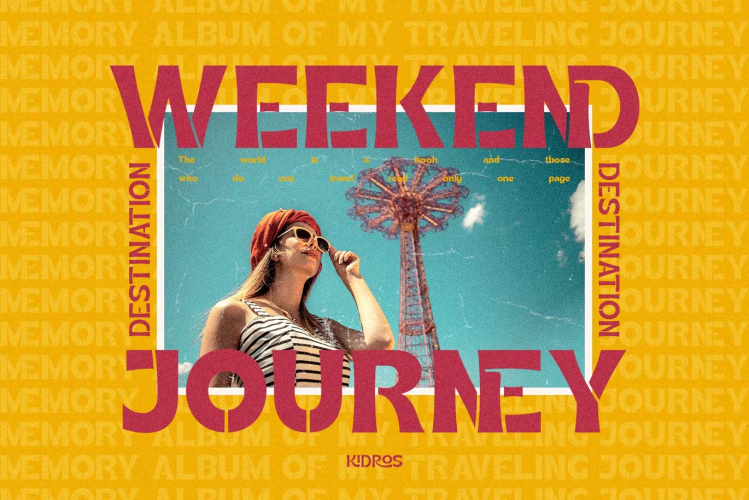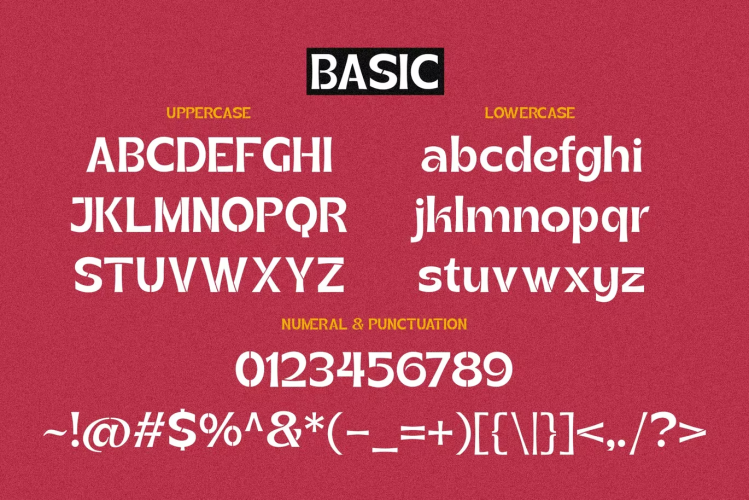
Kidros Typeface Font
Introducing KIDROS Typeface
The KIDROS font is designed with a sans serif font concept that has a retro display stencil style. Irregular dynamic shapes but impressively regular and unique make the font “KIDROS” different and steal attention.
Sans serif typefaces such as “KIDROS” are very easy to apply to any design, especially those with an retro, vintage and strong, besides that this font is very easy to use both in design and non-design programs because everything changes and glyphs are supported by Unicode (PUA).
The “KIDROS”contains 540 glyphs with many unique and interesting alternative options. Plus, there’s a cool sans serif font family for header and description text from thin to heavy to thin. In the poster preview all the letters are in the KIDROS typeface.
Where Kidros Typeface Font works best
Kidros Typeface Font keeps its shape at 14 and 16 pixels, which is where interface text actually lives. Numbers and capitals stay distinguishable in tables.
Presentations are read at a distance; a clean sans with a strong bold is the safest hierarchy you can build in a hurry.
Simple letterforms survive angles, glare and movement, so Kidros Typeface Font suits door signs, menus boards and exhibition panels.
What kind of work does Kidros Typeface Font suit?
It sits in the Sans Serif Fonts group and reads as retro, sans serif, sans serif fonts, serif. That makes it a candidate wherever those qualities help: headings, packaging, social graphics and brand work. Set it at the size you plan to use before deciding.